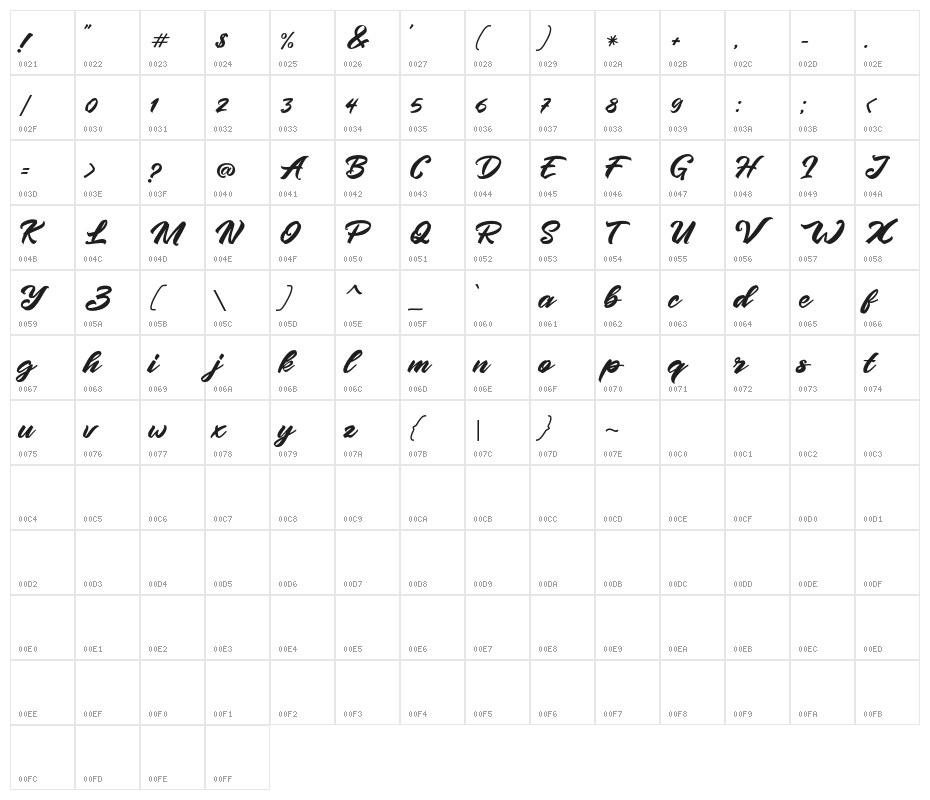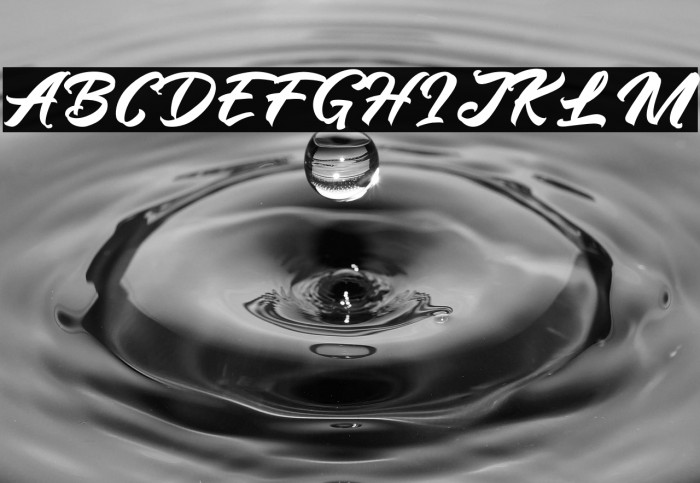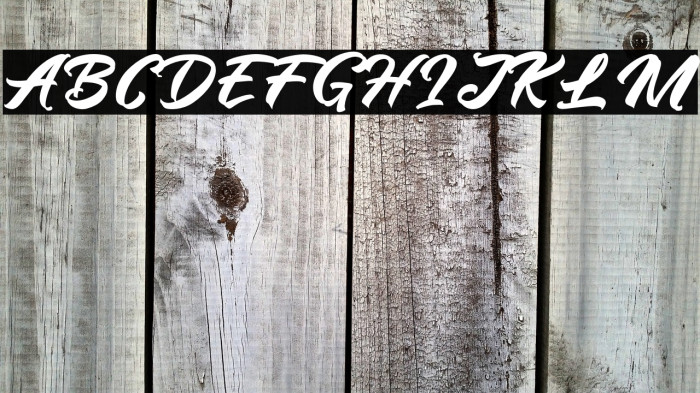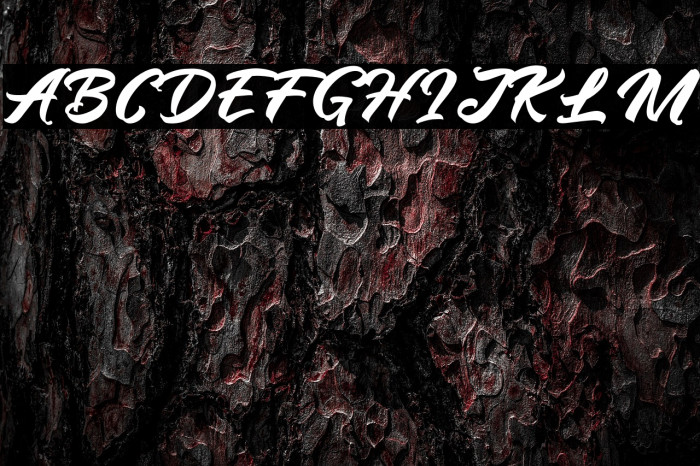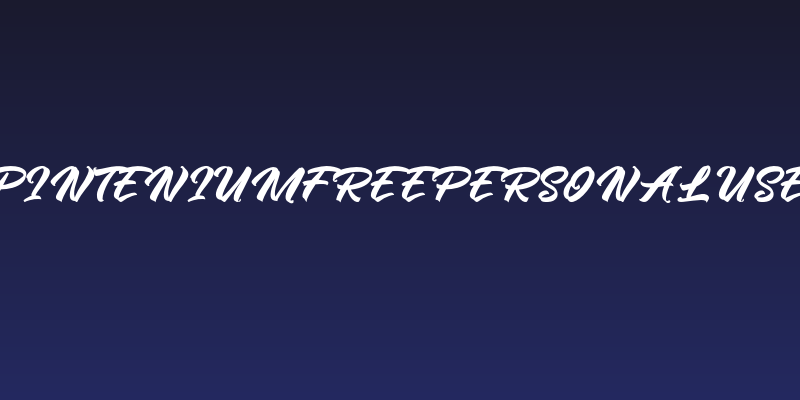
PinteniumFreePersonalUse Font
PinteniumFreePersonalUse Description
This font features a bold, cursive style with a strong emphasis on fluidity and elegance. The uppercase letters are characterized by sweeping curves and a consistent slant, giving them a dynamic and sophisticated appearance. The lowercase letters maintain the same fluidity, with smooth connections between characters, enhancing readability while preserving the decorative nature. The numerals are equally stylized, matching the overall aesthetic with their rounded forms and consistent weight. Special characters are designed to integrate seamlessly with the alphabet, maintaining the font's cohesive look. This font is ideal for projects that require a touch of elegance and flair, such as invitations, branding, and decorative headlines.
| Use Case | Headlines, Logos, Invitations |
| Proposed Projects | Ideal for invitations, branding, decorative headlines, and elegant design projects. |